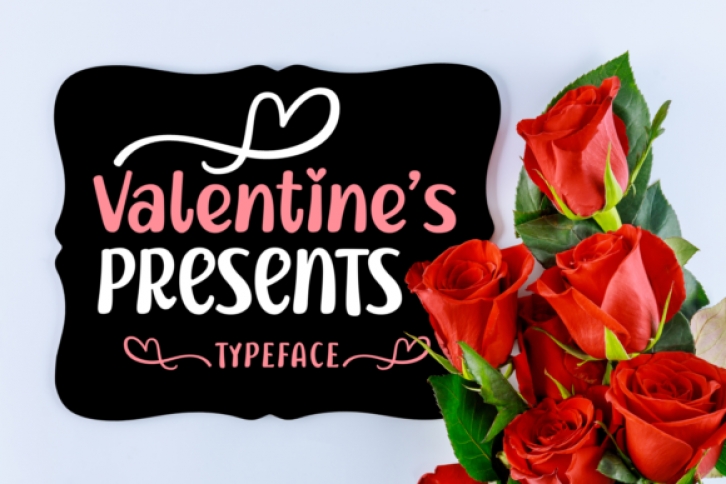
Valentine’s Presents is a light-hearted and playful display font. Its adaptable style and sweet touch will make each of your design ideas brighten up instantly.